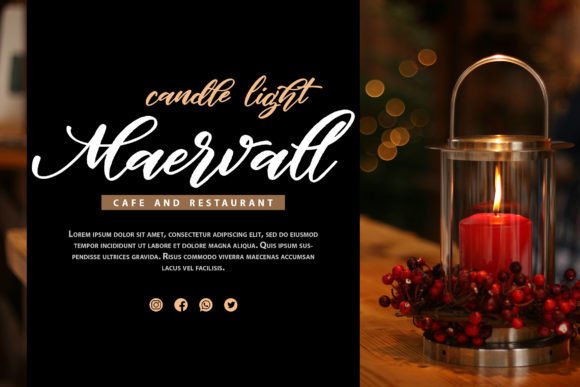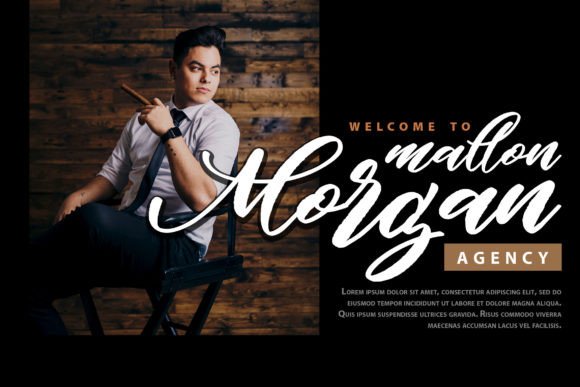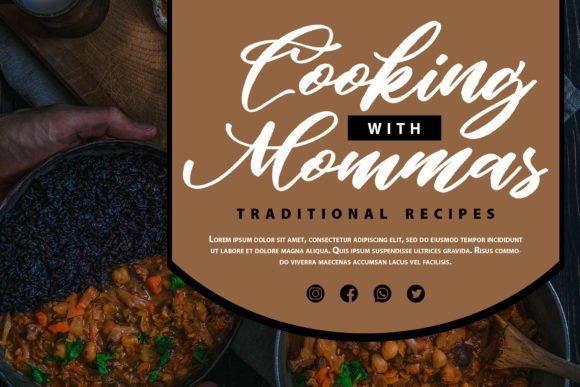
Introduction to Malmseen Font
Malmseen is a romantic and sweet calligraphy typeface with characters that dance along the baseline.
It has a casual, yet elegant touch This font is PUA encoded which means you can access all the glyphs and ligatures with ease.
Key Features of Malmseen Font
Why Choose Malmseen Font?
Malmseen Font offers exceptional quality and versatility, making it a valuable addition to your design toolkit. Whether you’re creating for personal projects or commercial use, Malmseen Font delivers professional results.